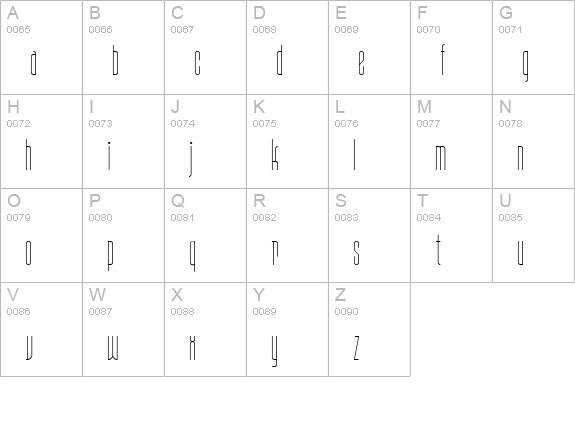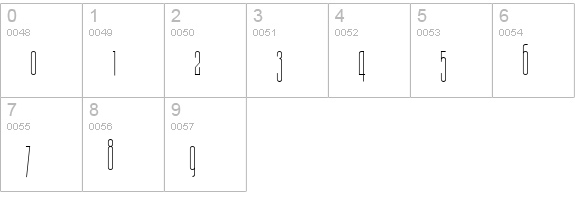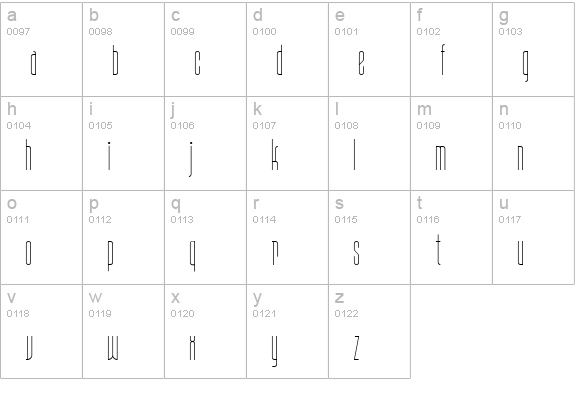
Daddy Longlegs NF font is a whimsical and charming typeface that exudes a unique playfulness and elegance. With its elongated letterforms and delicate curves, this font is perfect for adding a touch of sophistication to any project. Its graceful strokes and intricate details make it stand out from the crowd, making it a versatile choice for a wide range of design applications. What's even better is that Daddy Longlegs NF font is available for free download at FontsMarket.com. So whether you're working on a branding project, creating invitations, or designing a website, this font is a fantastic option that won't break the bank. Embrace the beauty and charm of Daddy Longlegs NF font today and elevate your designs to new heights!